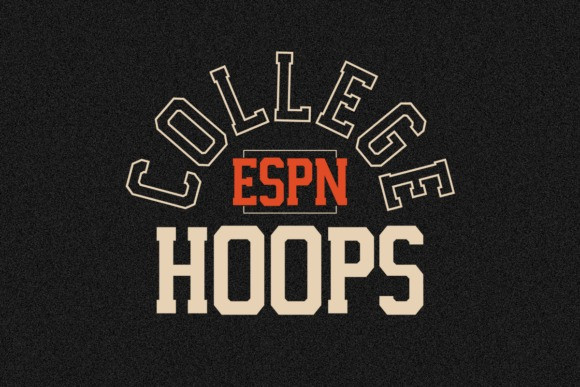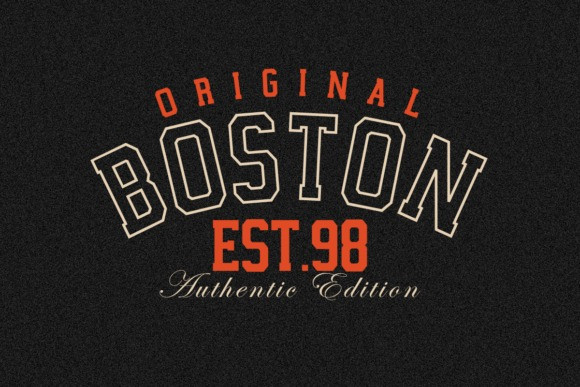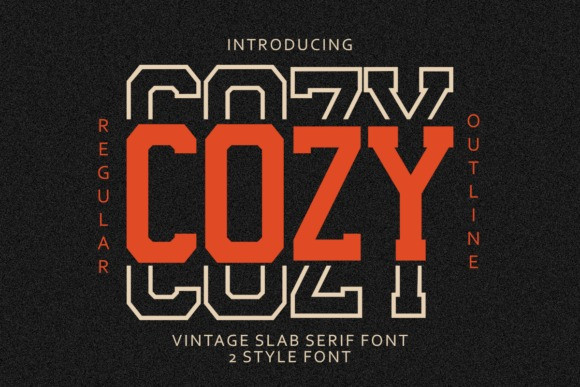
Cozy Font
Cozy Font is a vintage slab serif font with bold geometric shapes and two versatile styles (regular and outline). Perfect for posters, branding, packaging, and sports designs, this font brings a strong retro yet modern look to your designs.
Whether you are working on editorial layouts or creative merchandise, Cozy will make your project stand out. Add it to your creative toolbox and enjoy a truly vintage and timeless vibe!